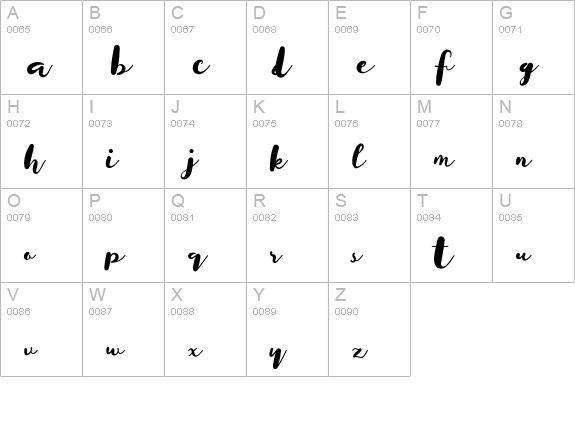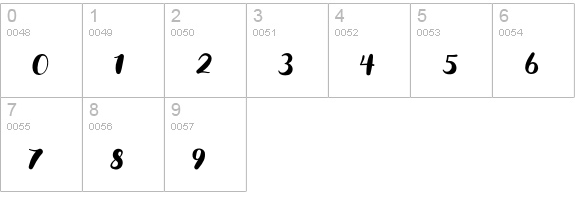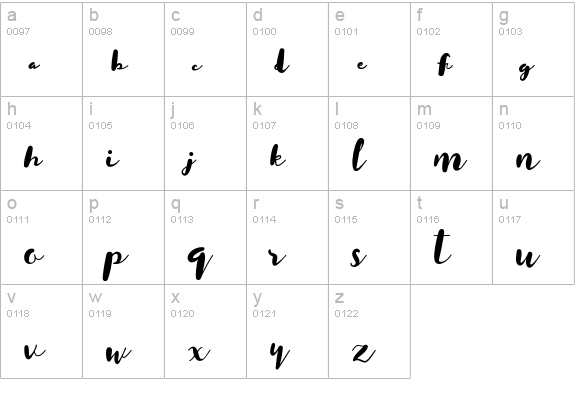
GullickAlt Font Details
GullickAlt font is a modern and stylish typeface that effortlessly combines elegance and sophistication. With its sleek lines and unique design elements, GullickAlt is sure to make a bold statement in any project. This versatile font is perfect for branding, logos, headlines, and more. The best part? GullickAlt is available for free download at FontsMarket.com, allowing you to easily access this stunning font for your creative endeavors. Whether you're working on a personal project or a professional design, GullickAlt is sure to elevate your work with its distinctive charm and visual appeal. Download GullickAlt today and add a touch of class to your typography arsenal.